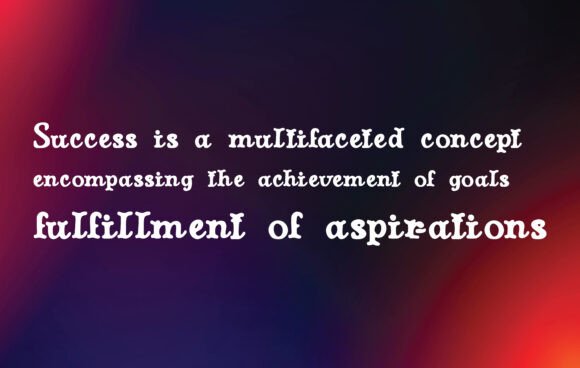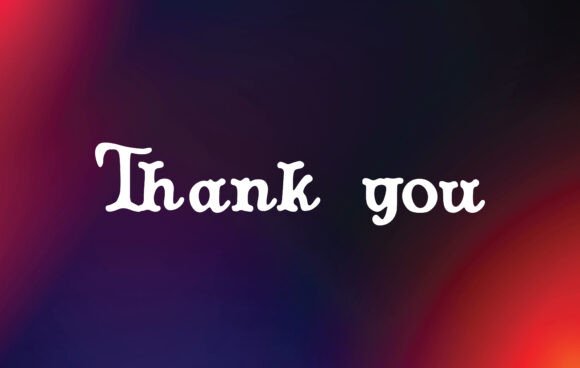
Introducing Angelo Font: Elevate Your Creative Projects with Elegance
In the world of typography, a font can make all the difference in bringing your creative visions to life. For designers, crafters, and anyone looking to add a touch of elegance to their projects, Angelo Font stands out as a remarkable choice. This lovely and beautiful handwritten font is not just a typeface; it’s a tool that can elevate your creative ideas to unprecedented heights. In this article, we’ll delve into the features and benefits of Angelo Font, and why it should be your go-to for creating eye-catching logos, branding, and quotes.
The Beauty of Angelo Font
Angelo Font is characterized by its unique, handwritten elegance. Each letter is crafted with precision and a keen eye for detail, resulting in a typeface that exudes warmth and sophistication. The fluidity and natural flow of Angelo Font make it perfect for projects that require a personal touch. Whether you’re designing a logo, crafting a brand’s identity, or creating inspirational quotes, this font adds a layer of beauty and refinement that sets your work apart.
One of the key advantages of Angelo Font is its versatility. Its elegant and clear lettering ensures that it remains legible across various sizes and applications. This adaptability makes it an ideal choice for a wide range of projects, from digital media to print materials. Whether you’re working on a business card, a website header, or a promotional poster, Angelo Font can be seamlessly integrated to enhance the visual appeal of your design.
For designers and crafters, finding the right font can often be a challenge. Angelo Font, however, checks all the boxes. It’s not just about aesthetics; it’s about the impact your design can have on its audience. With Angelo Font, you can:
- Create Eye-Catching Logos: A logo is often the first impression of your brand. With Angelo Font, you can craft a logo that is not only visually appealing but also conveys the essence of your brand.
- Develop Memorable Branding: Consistency in branding is key, and typography plays a crucial role in this. Angelo Font can help you establish a strong brand identity that resonates with your audience.
- Design Inspiring Quotes: Whether it’s for social media, a blog post, or a printout, quotes have the power to inspire and motivate. With Angelo Font, you can create quotes that are as impactful as they are beautiful.
Why Choose Angelo Font?
Given the vast array of fonts available today, what sets Angelo Font apart? Here are a few reasons why designers and crafters are gravitating towards this beautiful handwritten font:
- Unique Aesthetic: In a sea of generic fonts, Angelo Font offers a unique aesthetic that can help your projects stand out.
- Ease of Use: Angelo Font is designed to be user-friendly, making it easy to incorporate into your projects, regardless of your design experience.
- High-Quality Design: The attention to detail in Angelo Font ensures that it looks great in both digital and print formats.
Angelo Font is more than just a typeface; it’s a creative tool that can transform your designs and bring your ideas to life. Its elegance, versatility, and unique aesthetic make it an excellent choice for designers and crafters looking to add a touch of sophistication to their projects. Whether you’re creating logos, branding materials, or quotes, Angelo Font has the potential to elevate your work to new heights. So, why settle for ordinary when you can create something extraordinary with Angelo Font?